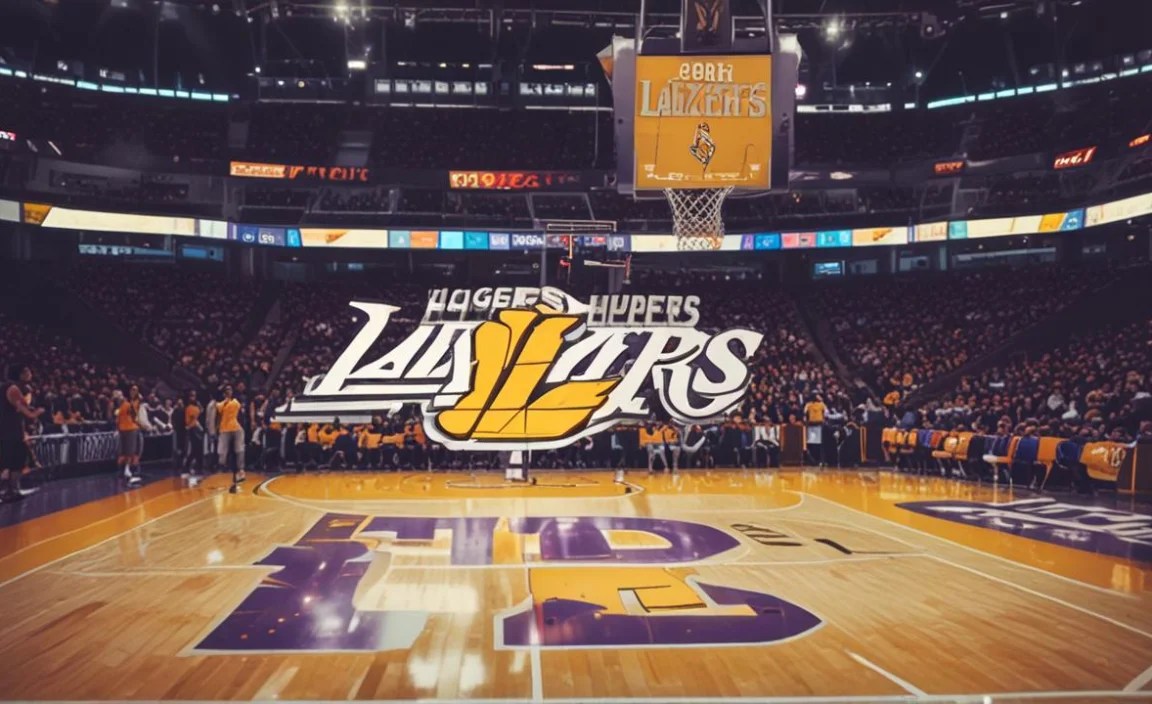
The Lakers Font, known for its association with the Los Angeles Lakers basketball team, embodies a bold and energetic style. This typeface, often used in the team’s branding and merchandise, reflects the Lakers’ dynamic and competitive spirit. Its distinctive design makes it instantly recognizable in sports and entertainment contexts.
| Name | Lakers Font |
| Type | Display Sans-serif |
Where Lakers Font Is In Use
The Lakers Font appears prominently in various applications related to the Los Angeles Lakers. Its bold and sporty appearance makes it suitable for a range of uses. Notable applications include:
- Team merchandise and apparel
- Game day tickets and programs
- Branding and promotional materials
- Social media graphics
- Event posters
- Sports arena signage
- Fan gear and accessories
The Lakers font is more than just a typeface; it is a powerful symbol of the team’s legacy, identity, and cultural impact. Its bold, elegant design reflects the Lakers’ dominance on the court and their commitment to excellence. As the team continues to evolve, the font will remain a constant, reminding fans of the rich history and bright future of the Los Angeles Lakers.
1.What Font Do The Lakers Use In Their Logo?
The Lakers use a custom serif font in their logo, characterized by bold, blocky letters with sharp serifs. It is not a commercially available font but a unique design created specifically for the team.
3.Why Is The Lakers Font Purple And Gold?
The purple and gold color scheme represents the team’s identity and history. Purple symbolizes royalty and luxury, while gold signifies success and achievement, reflecting the Lakers’ championship legacy.
4.Has The Lakers Font Changed Over The Years?
While the core design of the Lakers font has remained consistent, it has undergone subtle refinements over the years to modernize its appearance and align with contemporary design trends.
5.How Does The Lakers Font Compare To Other NBA Team Fonts?
The Lakers font is one of the most iconic in the NBA, known for its boldness and elegance. While other teams also use custom fonts, the Lakers’ typography stands out due to its timeless design and cultural significance.